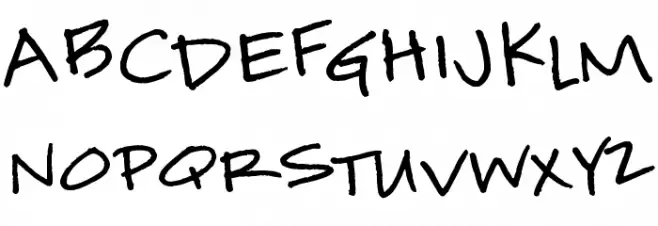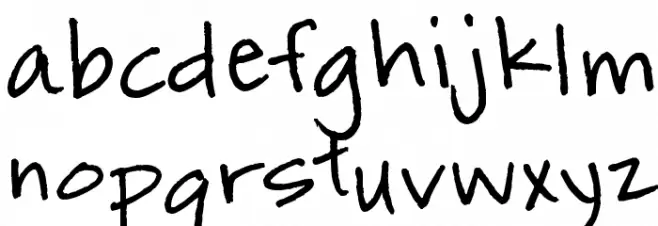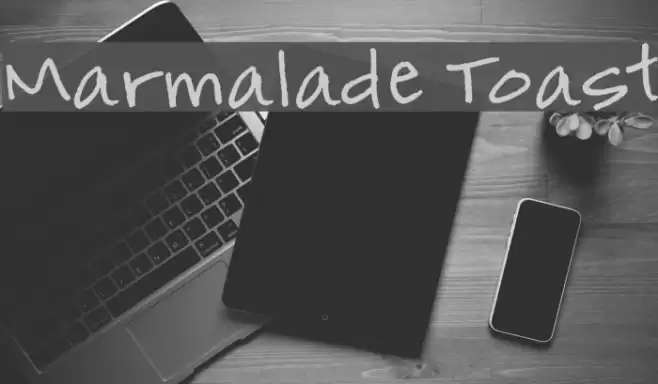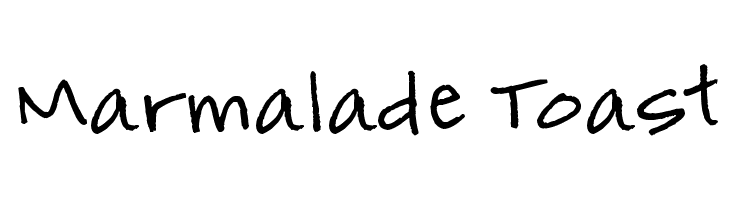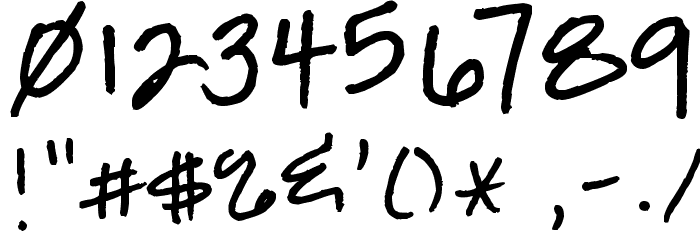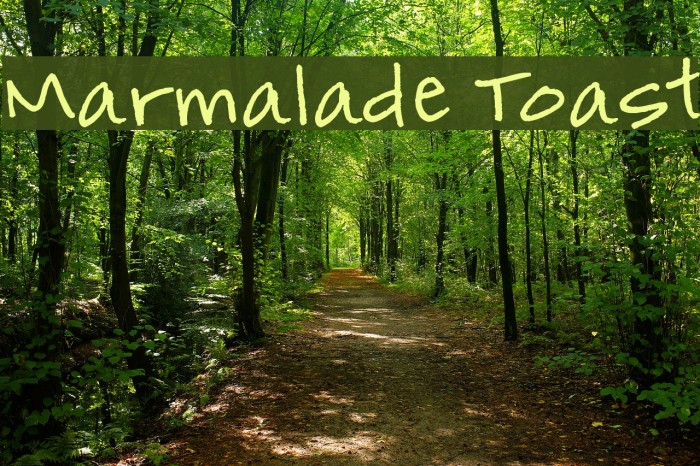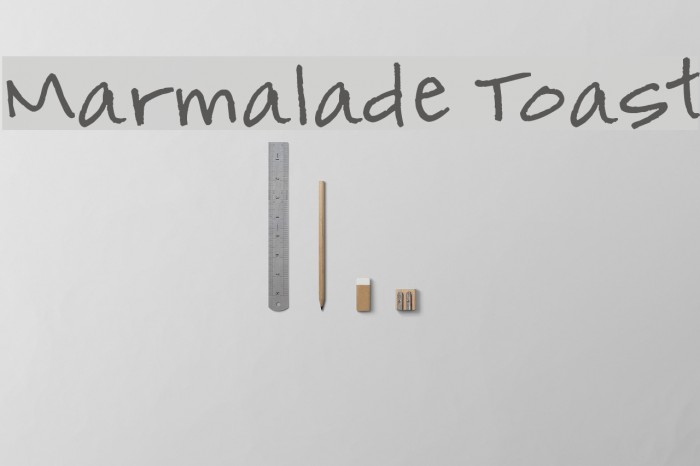
Marmalade Toast
This font features a playful, handwritten style with a casual and informal appearance. The letters are slightly slanted, giving it a dynamic and lively feel. The strokes are uneven, mimicking the natural flow of handwriting, which adds a personal touch to the text. The uppercase and lowercase letters are distinct yet harmonious, maintaining readability while adding character. The numbers and special characters follow the same handwritten aesthetic, ensuring consistency across all elements. This font's organic and friendly vibe makes it suitable for projects that require a personal or creative touch.
A playful, handwritten font with a casual and dynamic style.
- Proposed Projects: Ideal for greeting cards, personal blogs, creative branding, and informal invitations.
- Overall Style: Casual
- Use Case: Headlines, Informal text, Creative projects